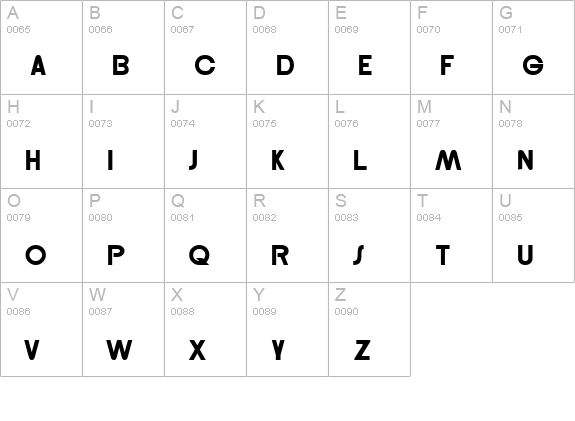
Gordon Regular Font Details
Gordon Regular is the standard, neutral variant in the Gordon typeface family \xE2\x80\x94 well suited to general body text, paragraphs, and standard typographic work.
Gordon Regular font is a versatile and stylish typeface that exudes elegance and professionalism. With its clean lines and classic design, Gordon Regular is perfect for a wide range of projects, from branding to editorial design. This font is ideal for creating a sophisticated and modern look for your designs. The best part? Gordon Regular is available for free download at FontsMarket.com. You can easily access this high-quality font and enhance your projects with its timeless appeal. Don't miss out on the opportunity to elevate your designs with Gordon Regular – download it now and add a touch of refinement to your work.